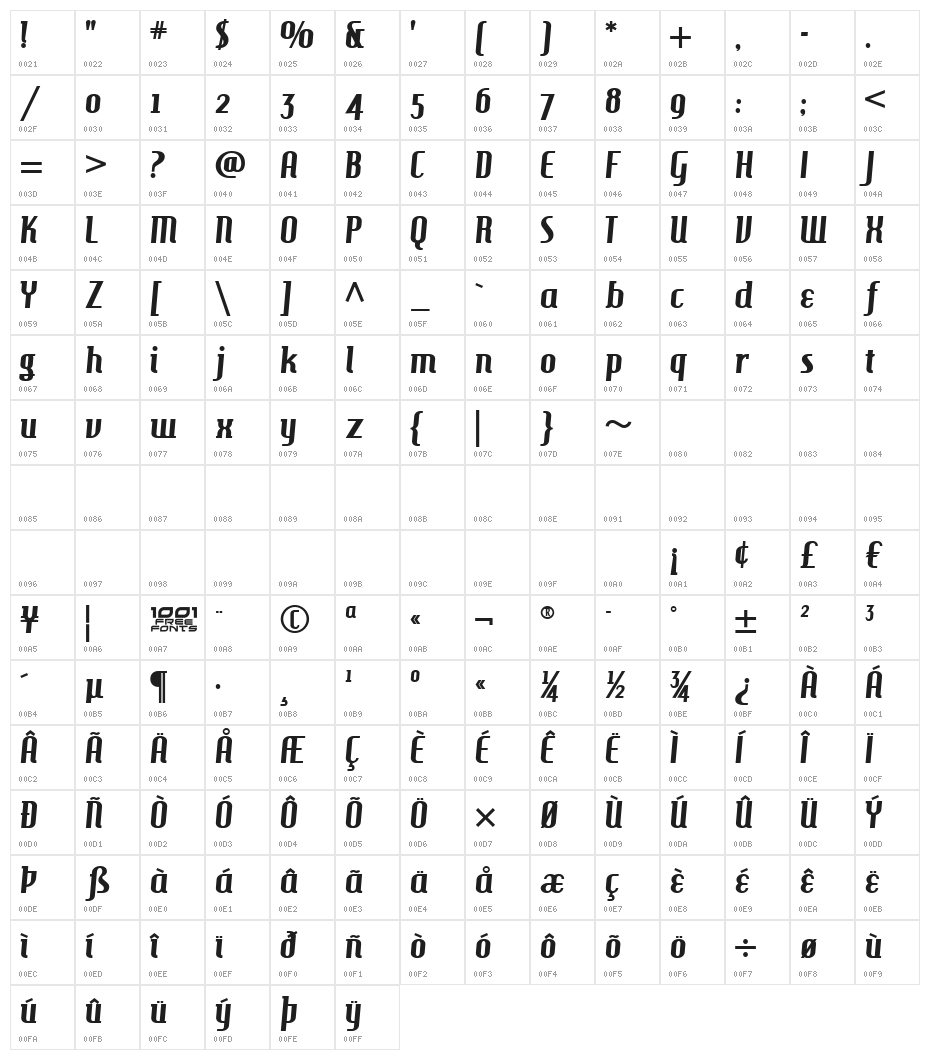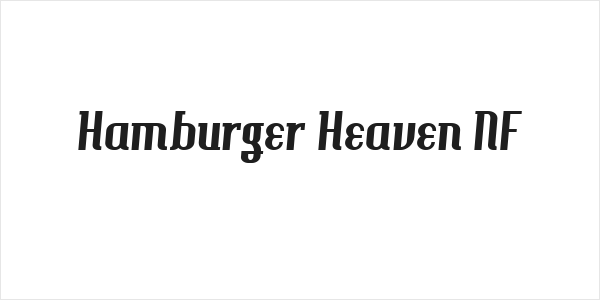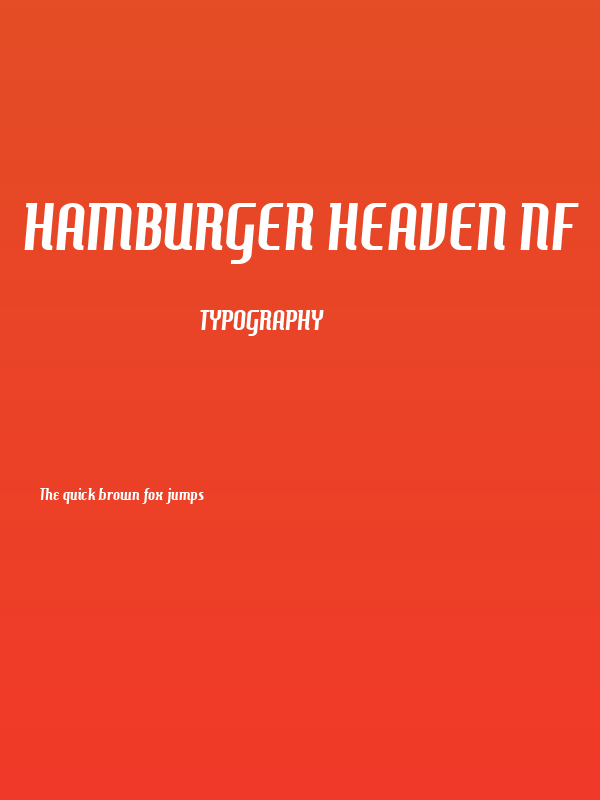
Hamburger Heaven NF Font
Hamburger Heaven NF Description
This font features a bold and dynamic style with a strong presence. The characters are slightly condensed with a distinct slant, giving them a sense of movement and energy. The uppercase letters are tall and commanding, while the lowercase letters maintain a consistent flow. The numerals are robust, matching the overall boldness of the alphabet. Special characters are designed to complement the alphabet, maintaining the same energetic style. The font's unique blend of boldness and slant makes it stand out, suitable for attention-grabbing designs.
| Proposed Projects | Ideal for posters, headlines, branding, and any project that requires a bold statement. |